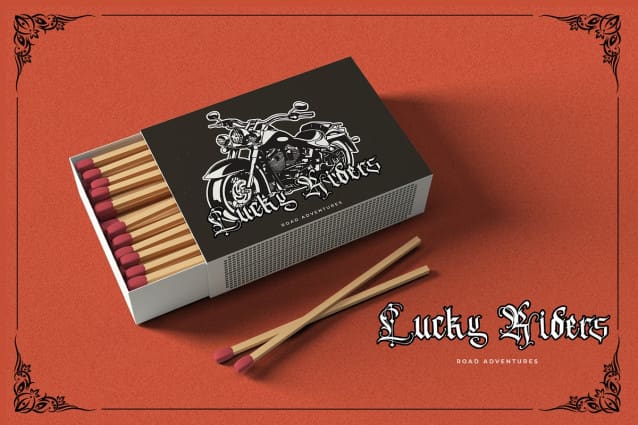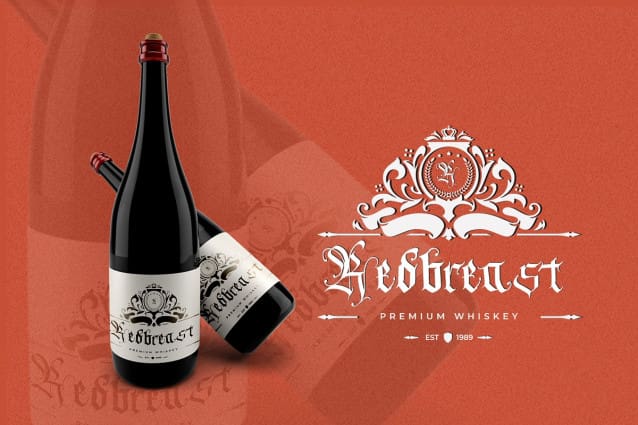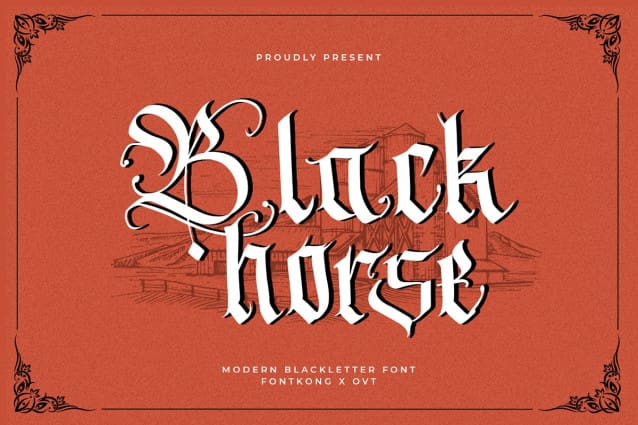
Blackhorse Blackletter Font
Blackhorse Blackletter Font a modern blackletter font that combines strength with elegance. Perfect for graphic designers, typographers, and creatives looking to make a bold statement, Blackhorse offers a contemporary interpretation of traditional blackletter styles.
Ideal for branding, posters, album covers, editorial design, and cultural projects, Blackhorse’s robust and detailed characters provide a striking visual impact. Each letter is meticulously crafted to balance the historical essence of blackletter with modern readability, ensuring your designs stand out with a unique and powerful aesthetic.
The “Blackhorse” font includes a comprehensive set of uppercase and lowercase letters, numbers, punctuation marks, and special characters. This versatile set facilitates seamless integration into various design applications, from impactful branding to expressive editorial layouts.
Make a strong impression with Blackhorse Blackletter, the modern blackletter font that combines strength and elegance in every stroke.